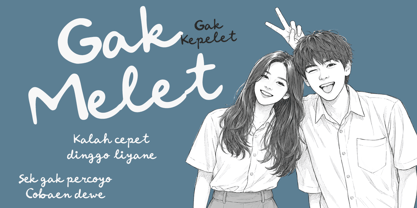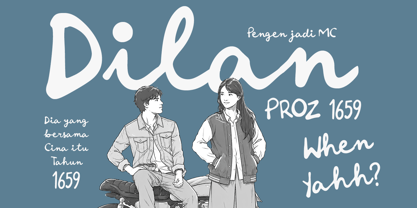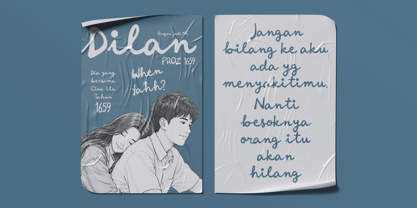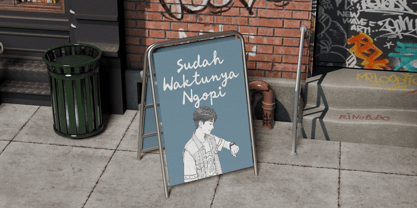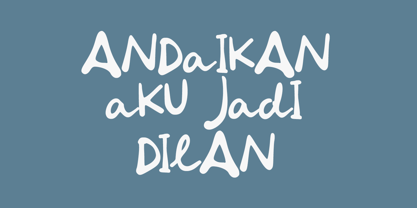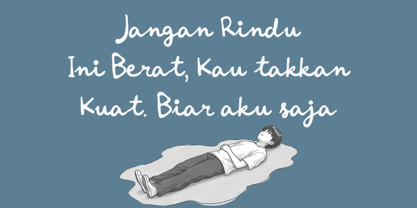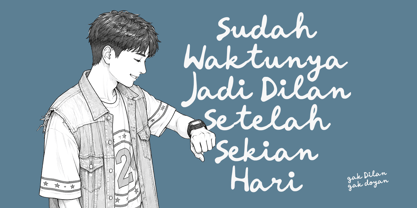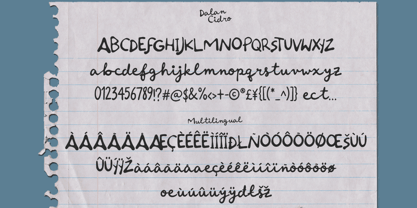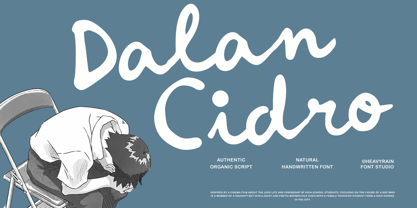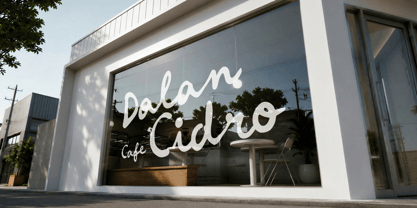
Dalan Cidro
por Heavyrain
La familia tipográfica Dalan Cidro fue diseñada por Devin Bagus Kurniawan y publicada por Heavyrain. Dalan Cidro contiene 1 estilos. Más información sobre esta familia
Dalan Cidro is a thoughtfully crafted handwritten script font that celebrates the beauty of natural writing. Inspired by organic pen strokes and the subtle imperfections of authentic handwriting, it features flowing curves, balanced proportions, and expressive letterforms that create a warm, approachable, and timeless appearance.
Designed with versatility in mind, Dalan Cidro performs beautifully across a wide variety of creative applications, from branding and packaging to editorial design and digital content. Its smooth rhythm and organic construction provide excellent readability while preserving the unique character of handcrafted lettering.
Whether you're building a café identity, designing artisanal product labels, creating wedding invitations, or crafting elegant social media content, Dalan Cidro delivers a genuine handwritten personality that feels refined without losing its natural charm.
Combining classic inspiration with modern usability, Dalan Cidro is a versatile script font that helps designers create work that feels personal, memorable, and effortlessly beautiful.
Diseñadores: Devin Bagus Kurniawan
Fundición: Heavyrain